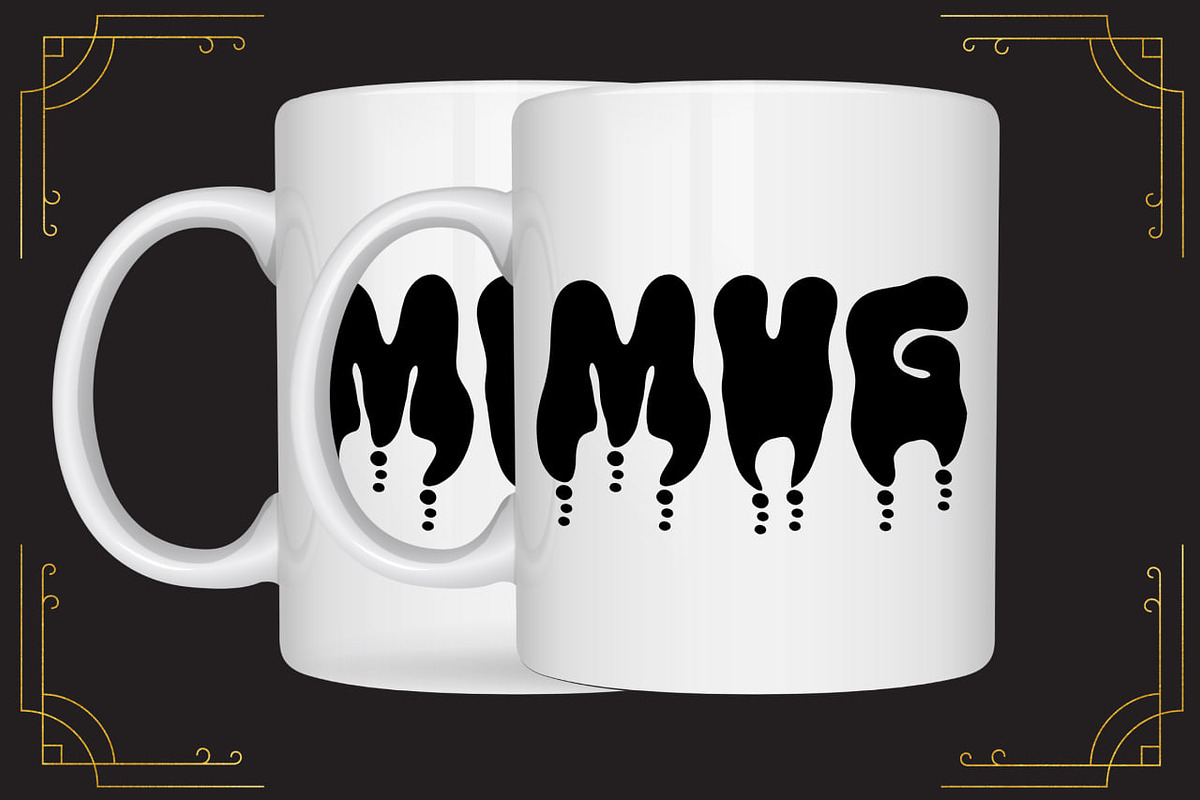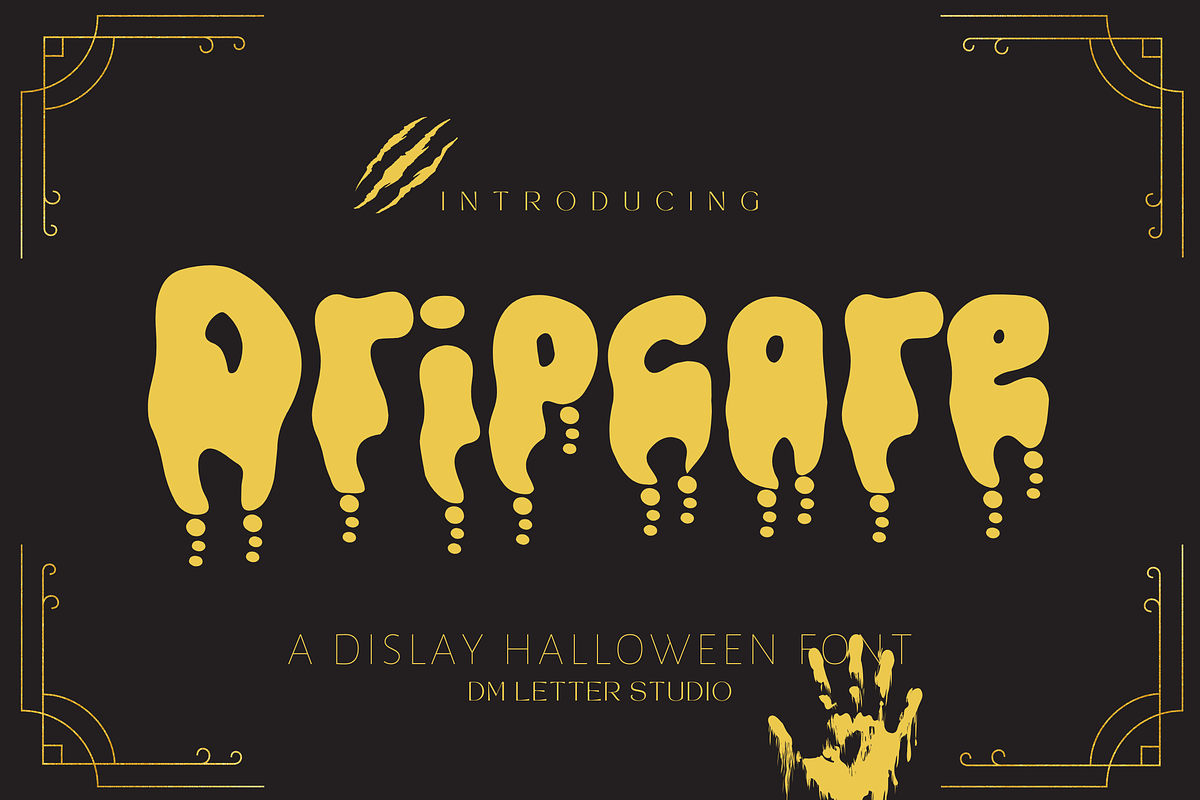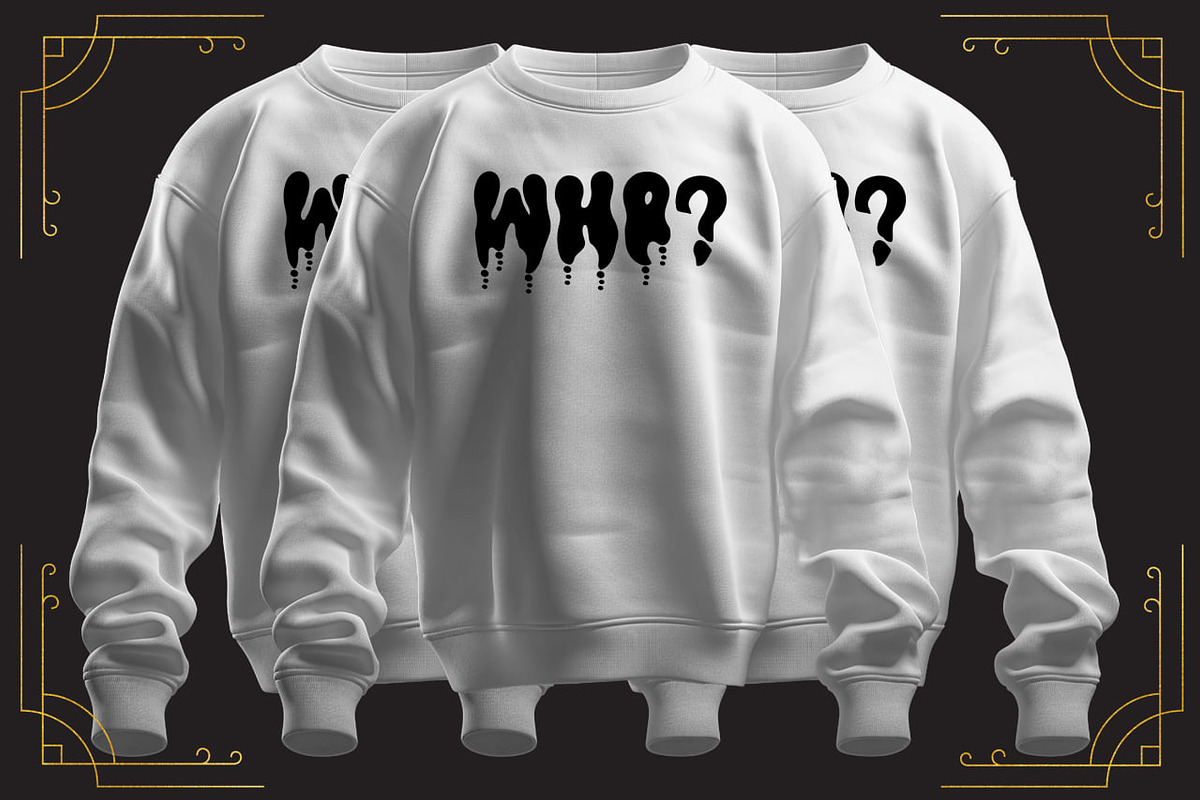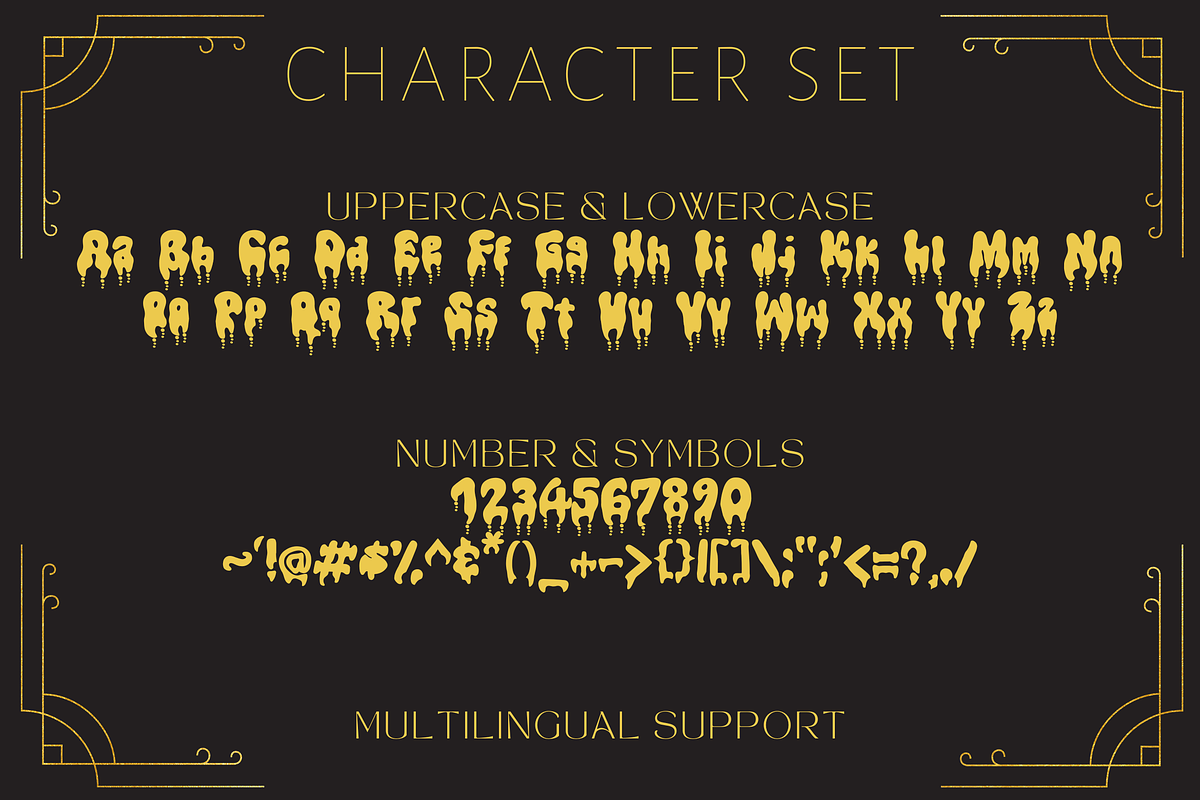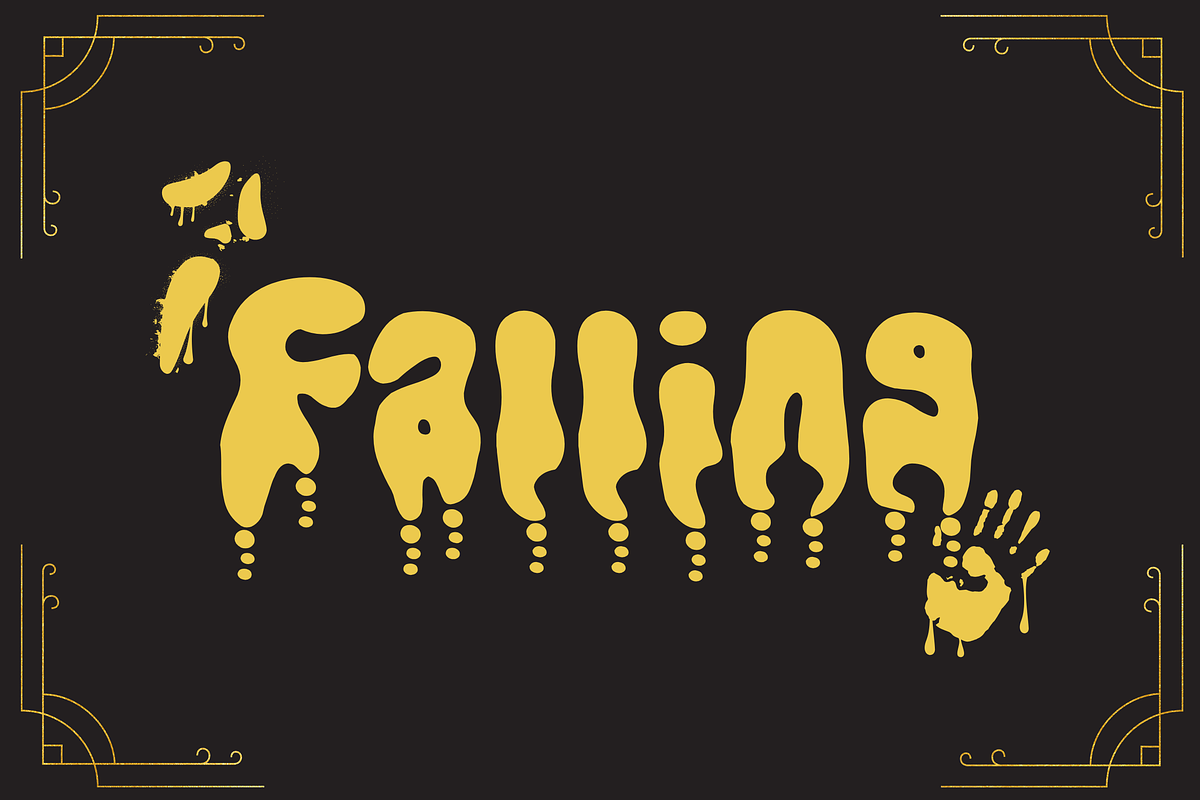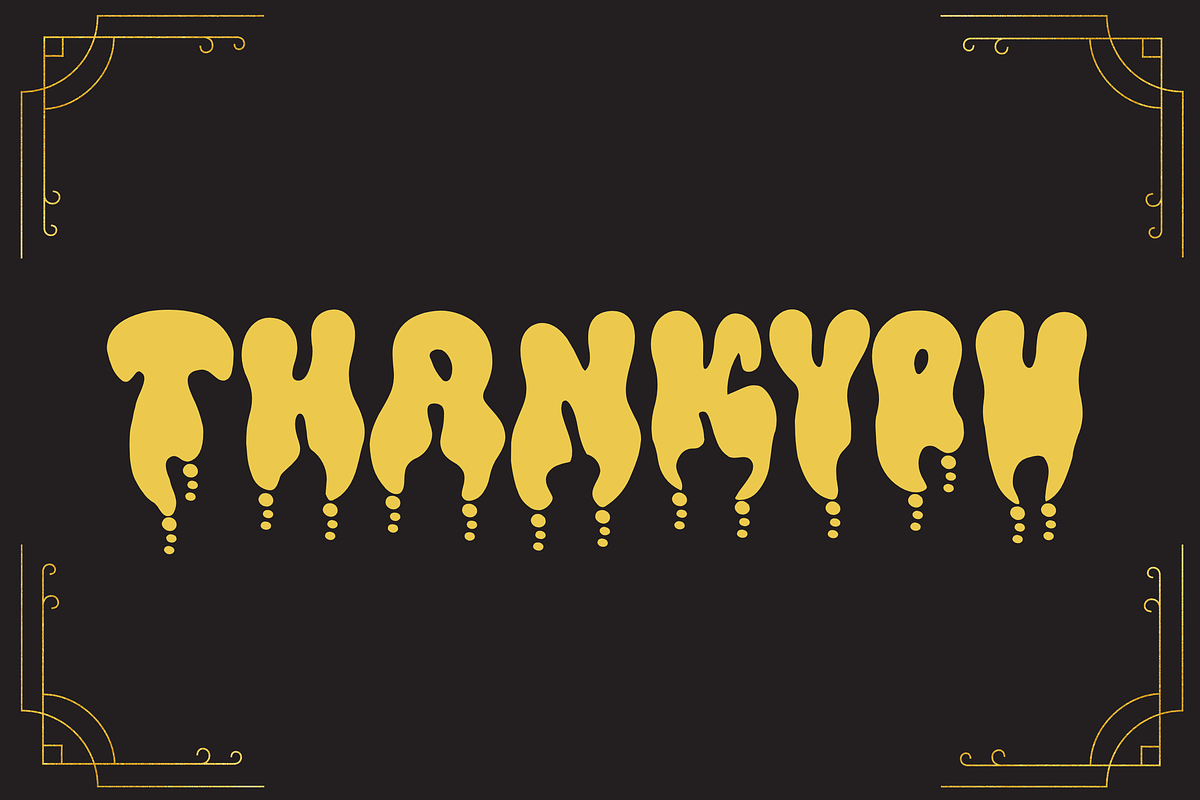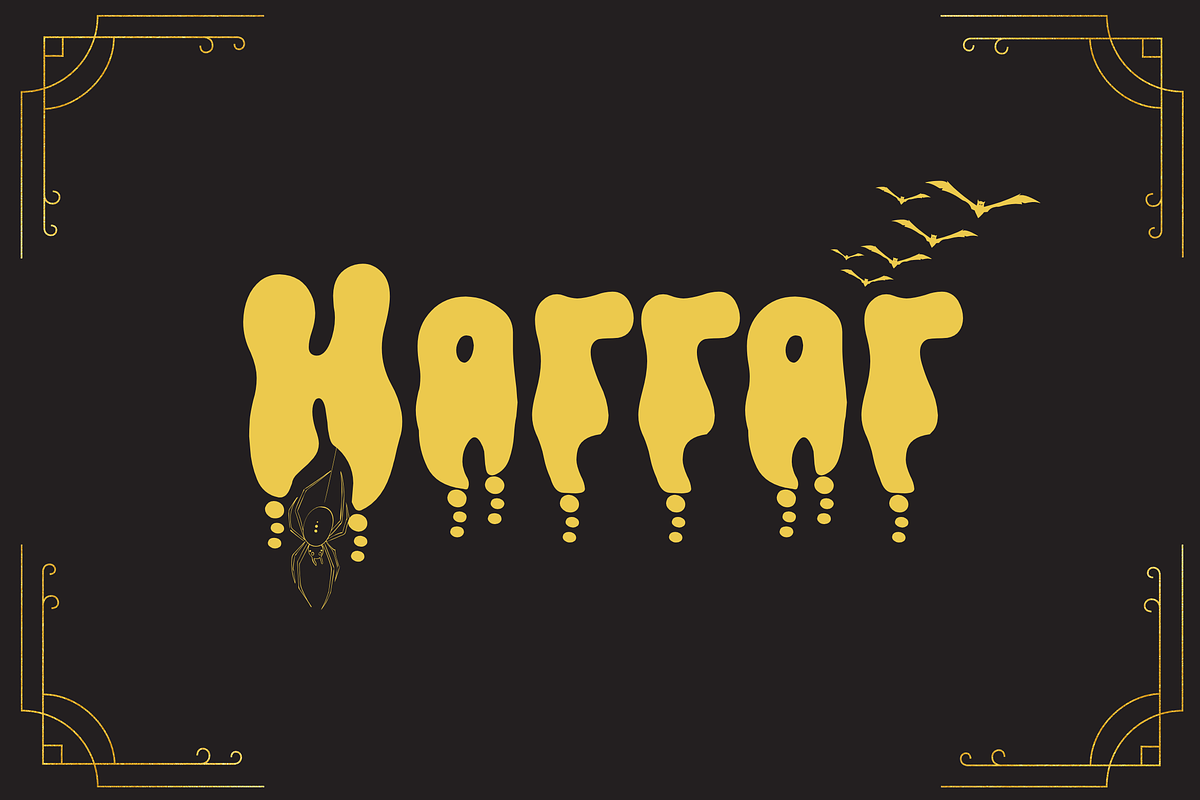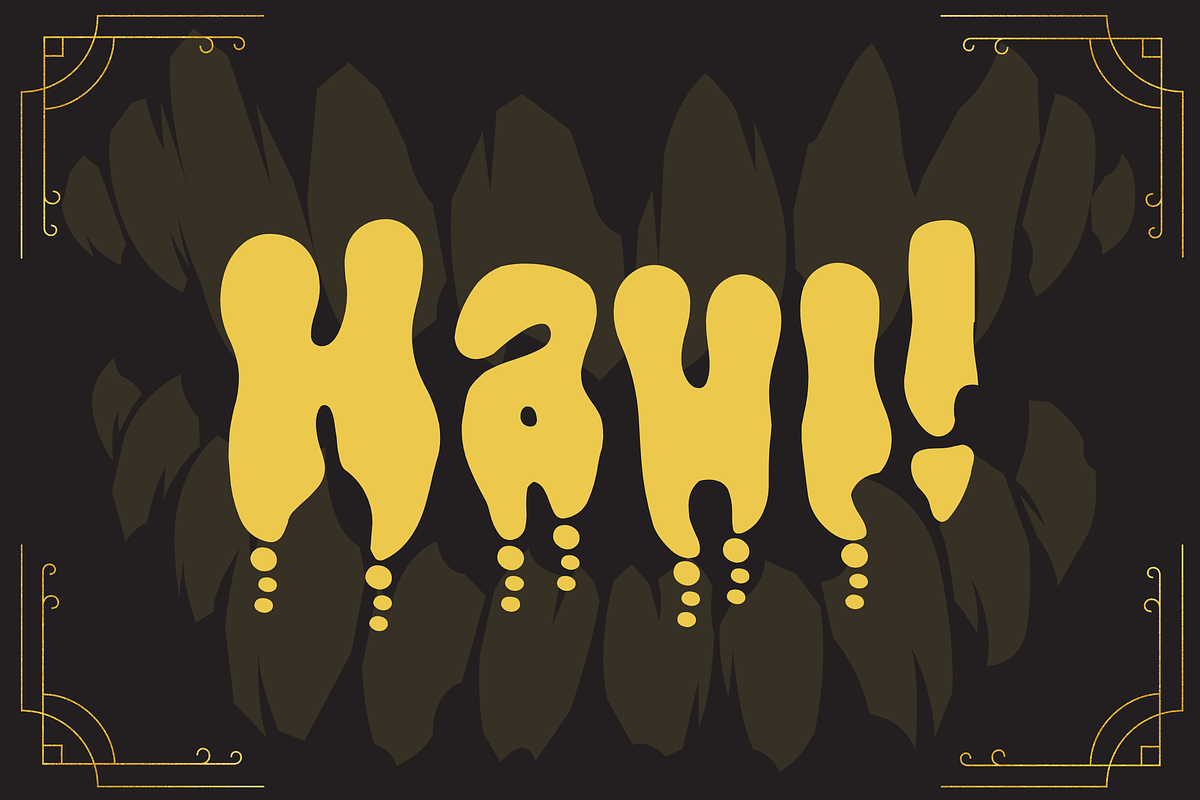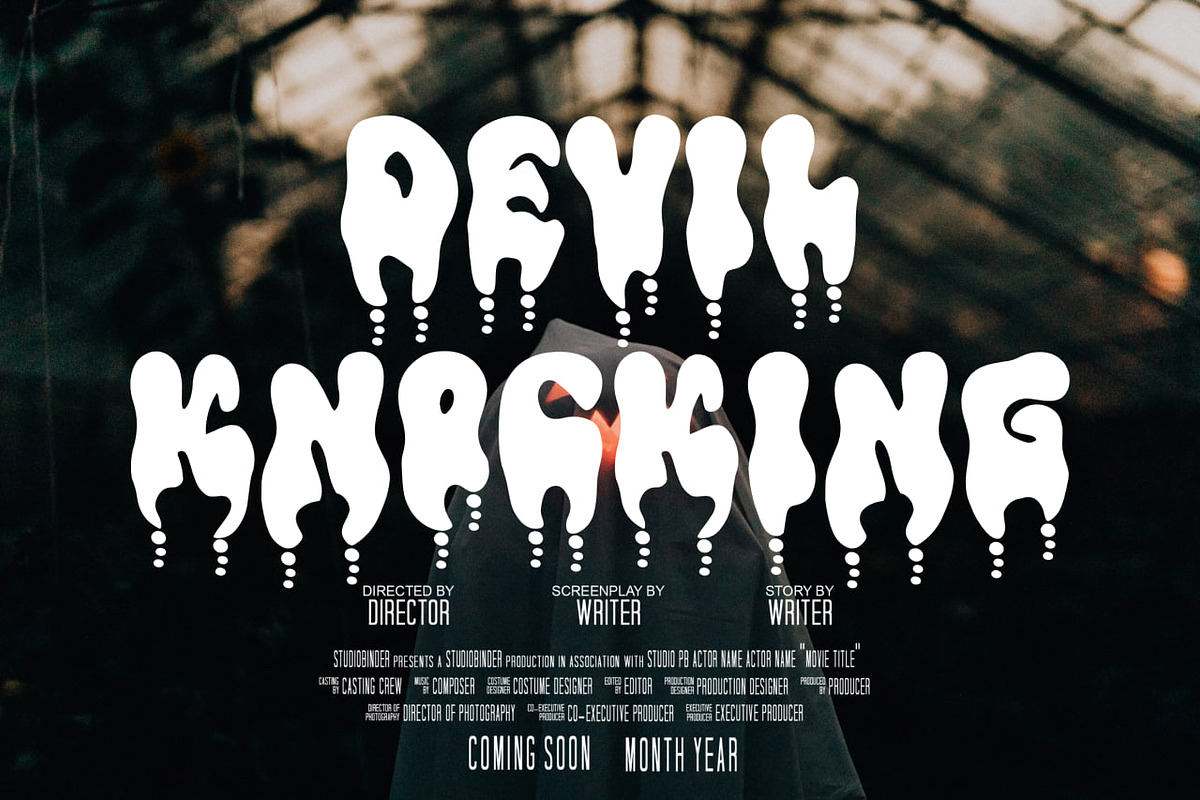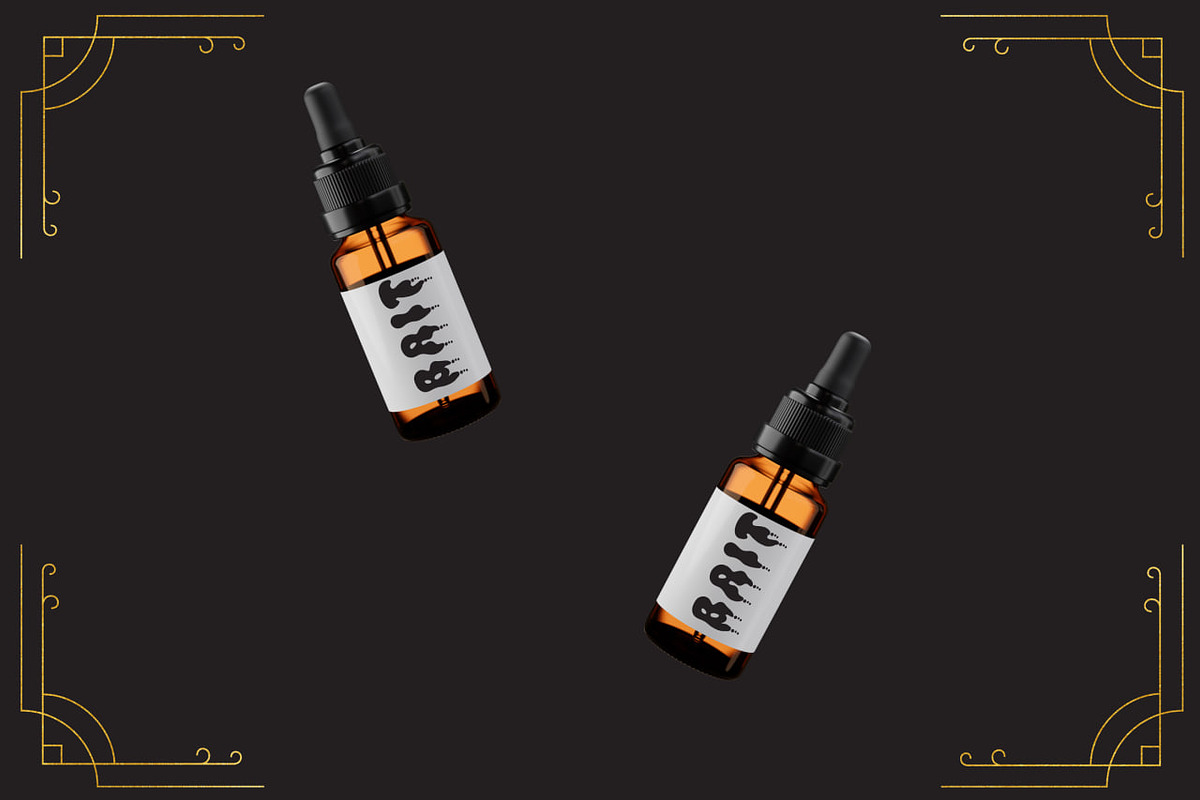
Dripcore
Meet Dripcore, the Display Halloween Font
Dripcore is a bold Halloween display font with a sharp, drippy attitude. The shapes feel spooky and playful at the same time, like melting slime, haunted paint, and midnight horror posters. Each letter is built for impact, so titles stay readable while still delivering that creepy vibe. Use Dripcore for Halloween shirts, party invites, stickers, posters, spooky branding, social media graphics, and seasonal packaging. As a result, your designs look instantly “Halloween” without needing extra effects.
Fast layouts with the Dripcore Halloween Font
Start with short words like titles and punchy phrases. After that, pair Dripcore with a clean sans serif for dates, details, or pricing. Because the style is already dramatic, keep shadows and textures simple so the drips stay readable. In addition, it looks great on solid blocks, spooky gradients, or subtle grain backgrounds. Finally, save palettes like black and orange, purple and slime green, bone and charcoal, or red and black for fast Halloween sets.
Creative uses and quick wins
- Halloween t-shirt designs and hoodie prints
- Party invitations, flyers, and event posters
- Stickers, labels, and treat bag tags
- Spooky product packaging for candles, candy, and soaps
Design tips for Dripcore
Use Dripcore for headlines and keep body text clean and simple. Also, avoid shrinking it too small, since drip details need space to stay sharp. For print, export at 300 DPI and test a small proof on stickers or labels. For digital, scale up slightly so the drips stay crisp on mobile. Finally, if the background is busy, place the text on a solid shape or badge.